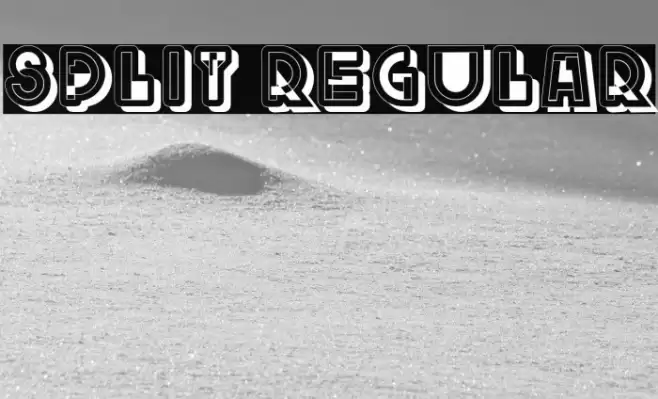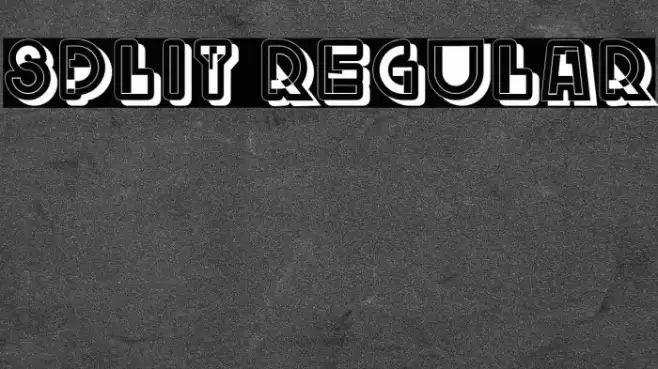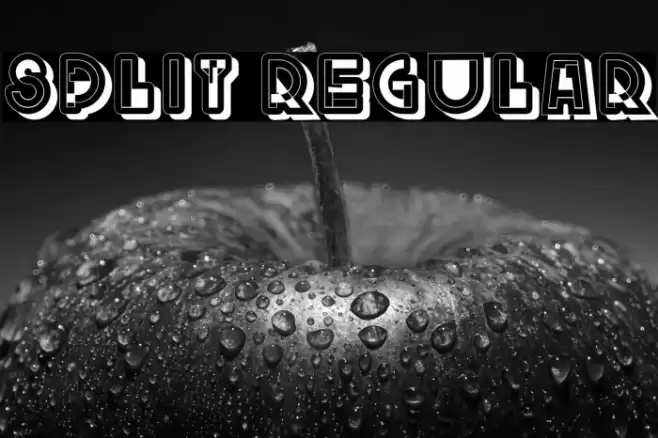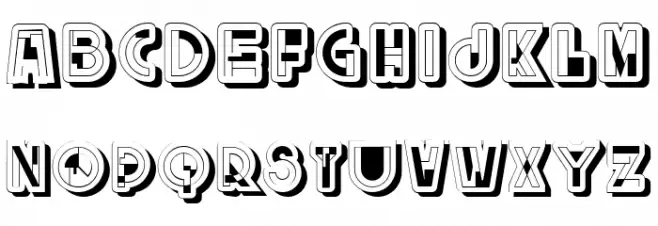
Split Regular Font
Split Regular Description
This font features a bold and striking design with a three-dimensional effect, achieved through the use of layered outlines and shadows. The characters are uppercase, with a geometric and structured appearance, giving them a modern and playful feel. The font's unique style is characterized by its split design, where each letter appears to be divided into sections, creating an eye-catching visual effect. This design choice adds depth and dimension, making the font ideal for attention-grabbing headlines and creative projects. The overall look is both contemporary and artistic, suitable for a variety of design applications.
A bold, three-dimensional font with a split design and geometric structure from Decorative fonts.
- Proposed Projects: Ideal for posters, branding, headlines, and any project requiring a modern, eye-catching typeface.